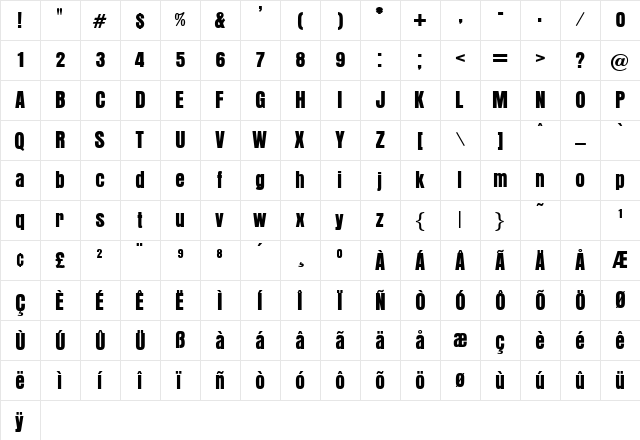
Auralle Regular
Design Context for Auralle Typeface
Auralle is a composed and adaptable typeface that performs quietly and consistently across a wide range of design contexts.
Pro Tip: Use Auralle in both headline and body roles to test its range before committing to a single application.